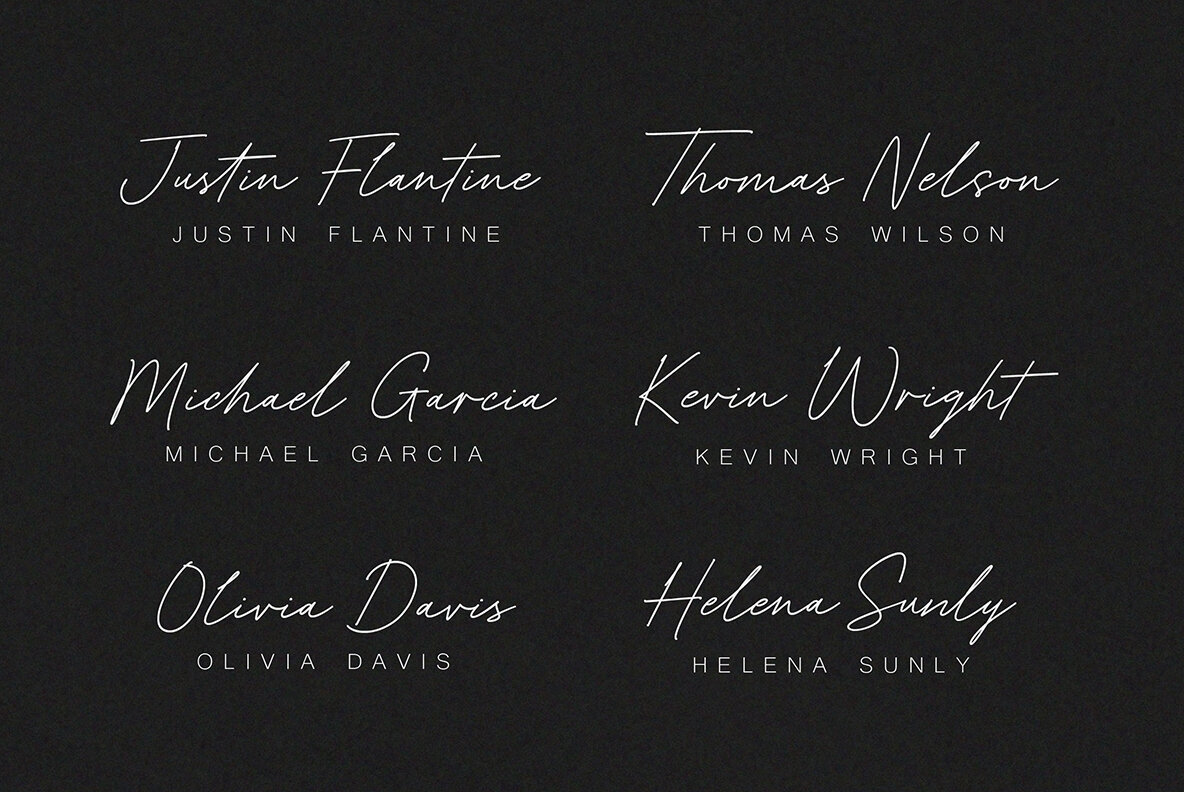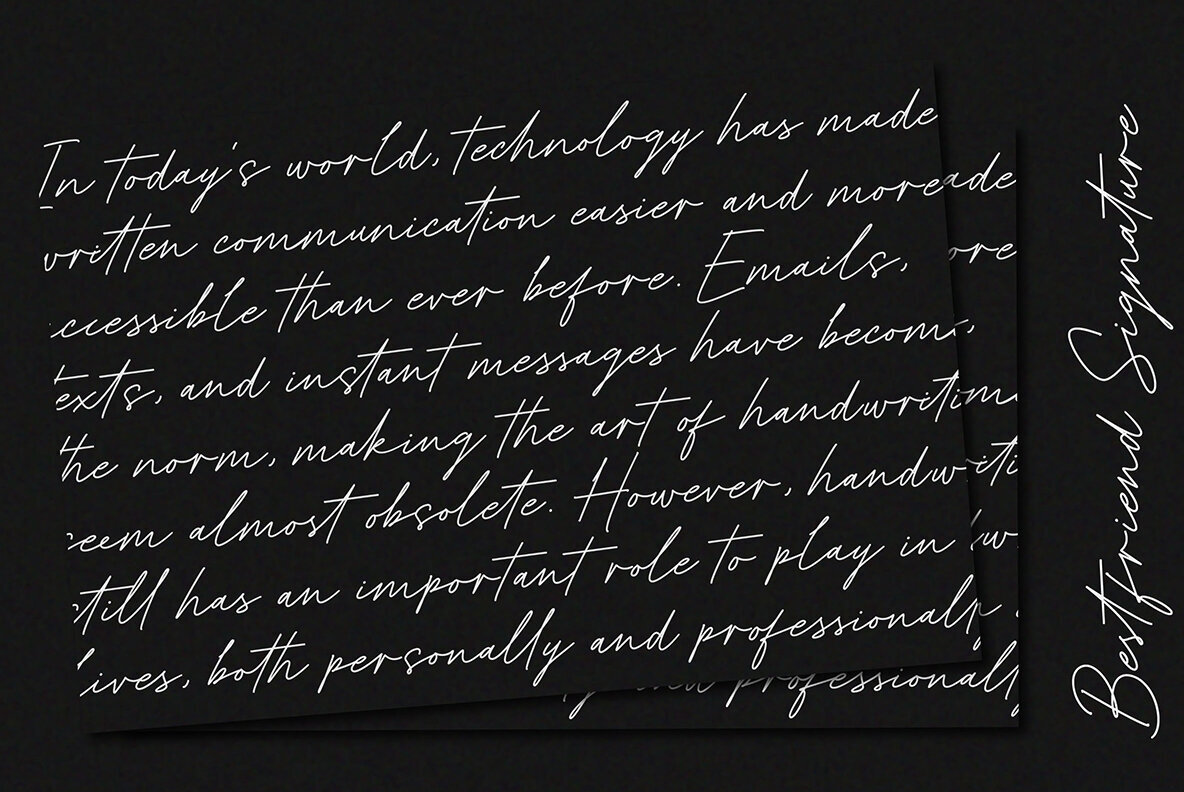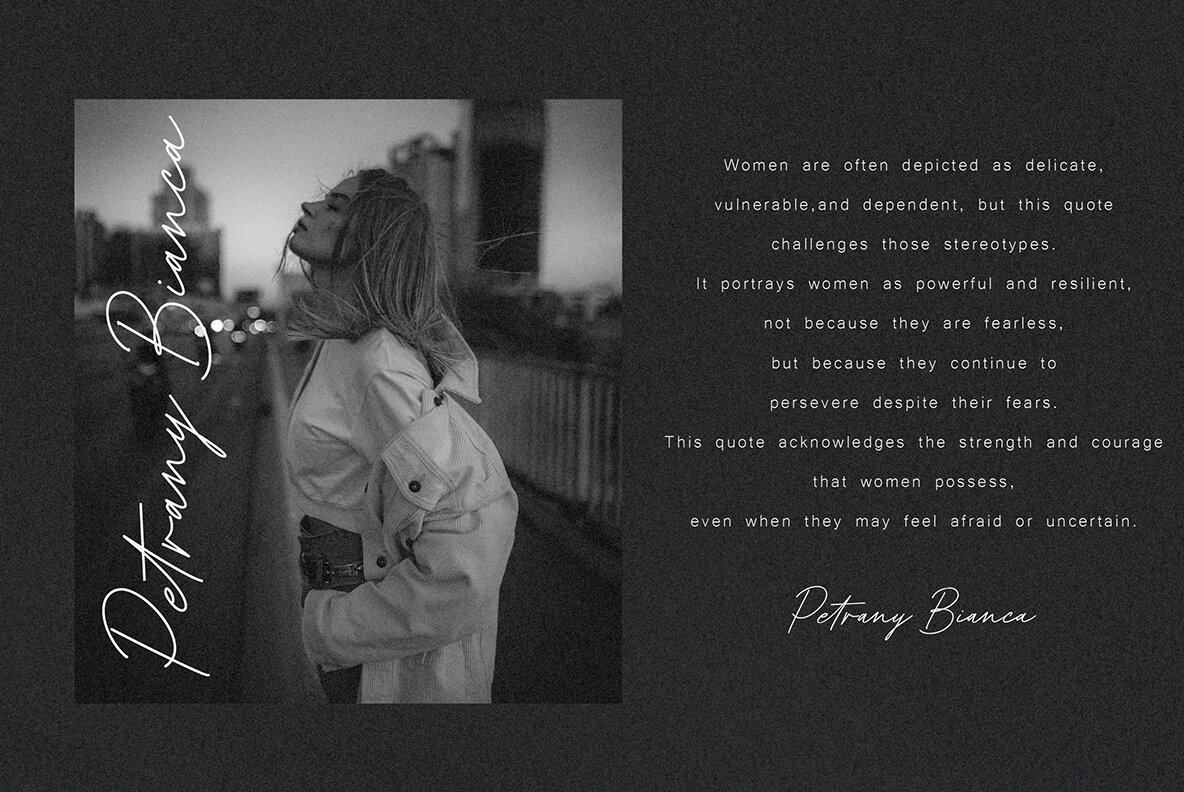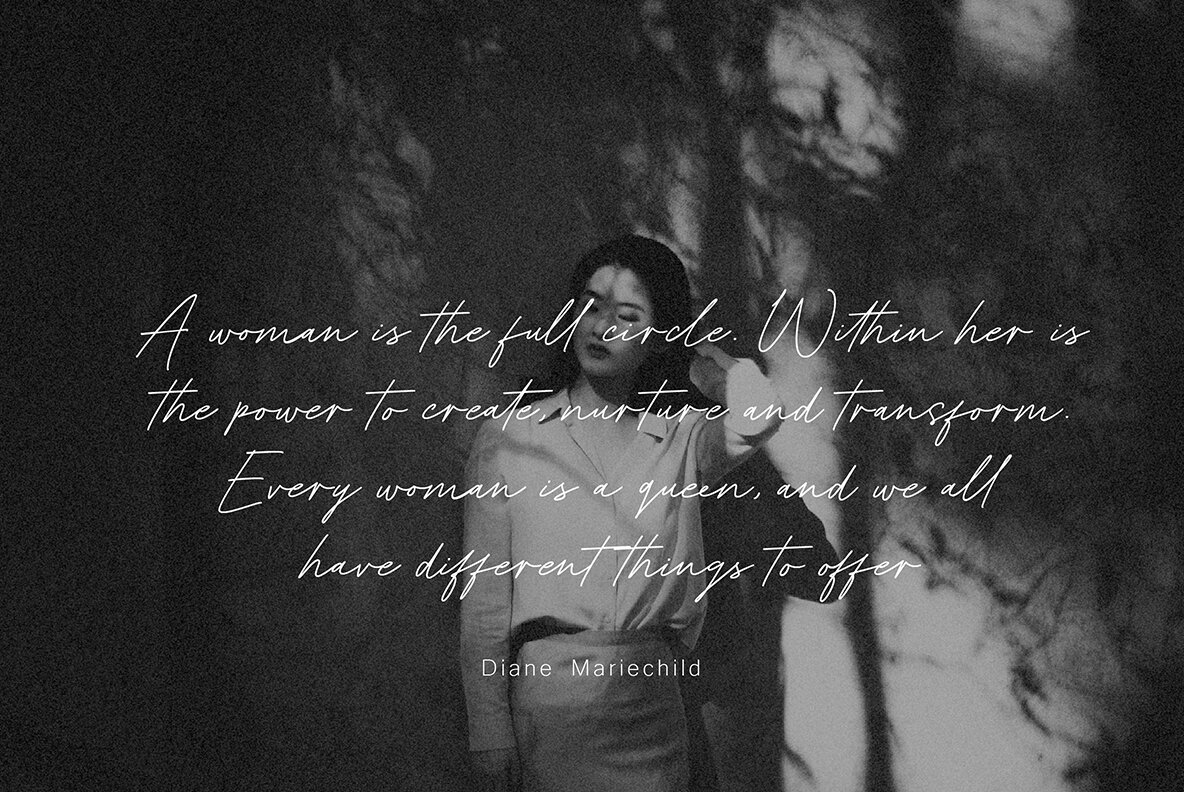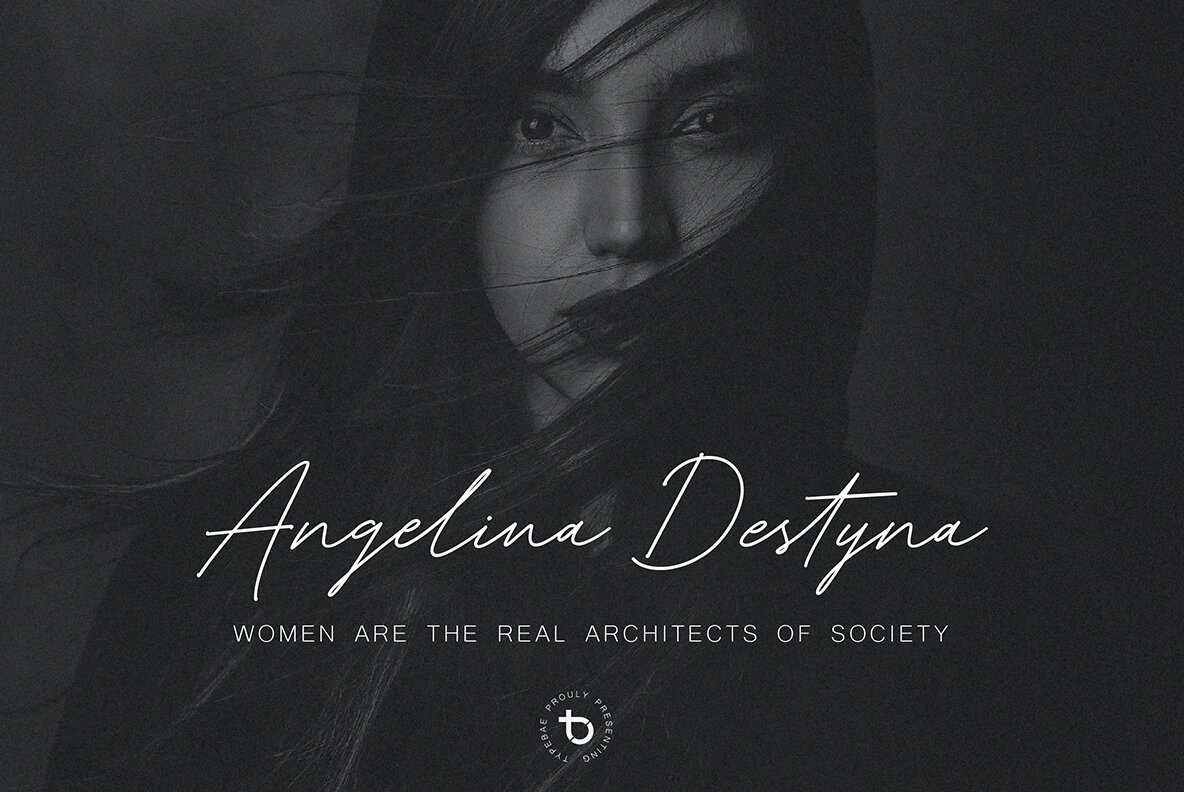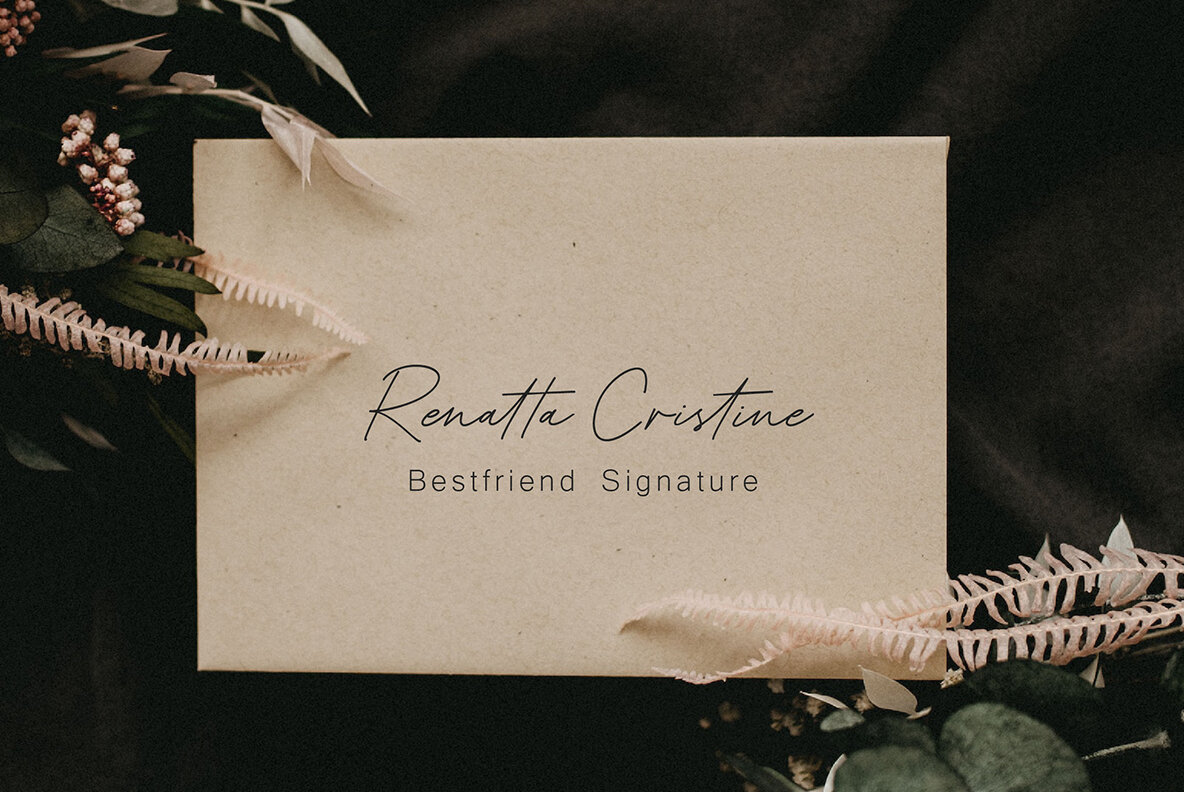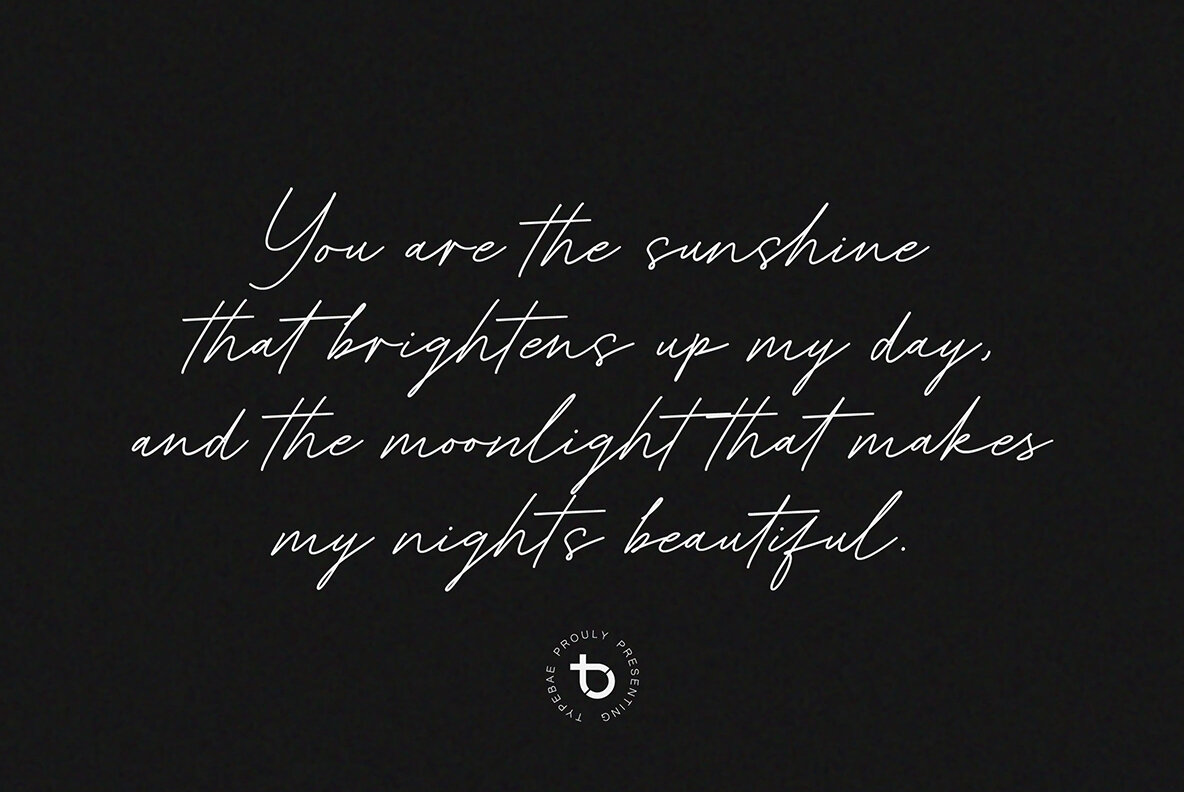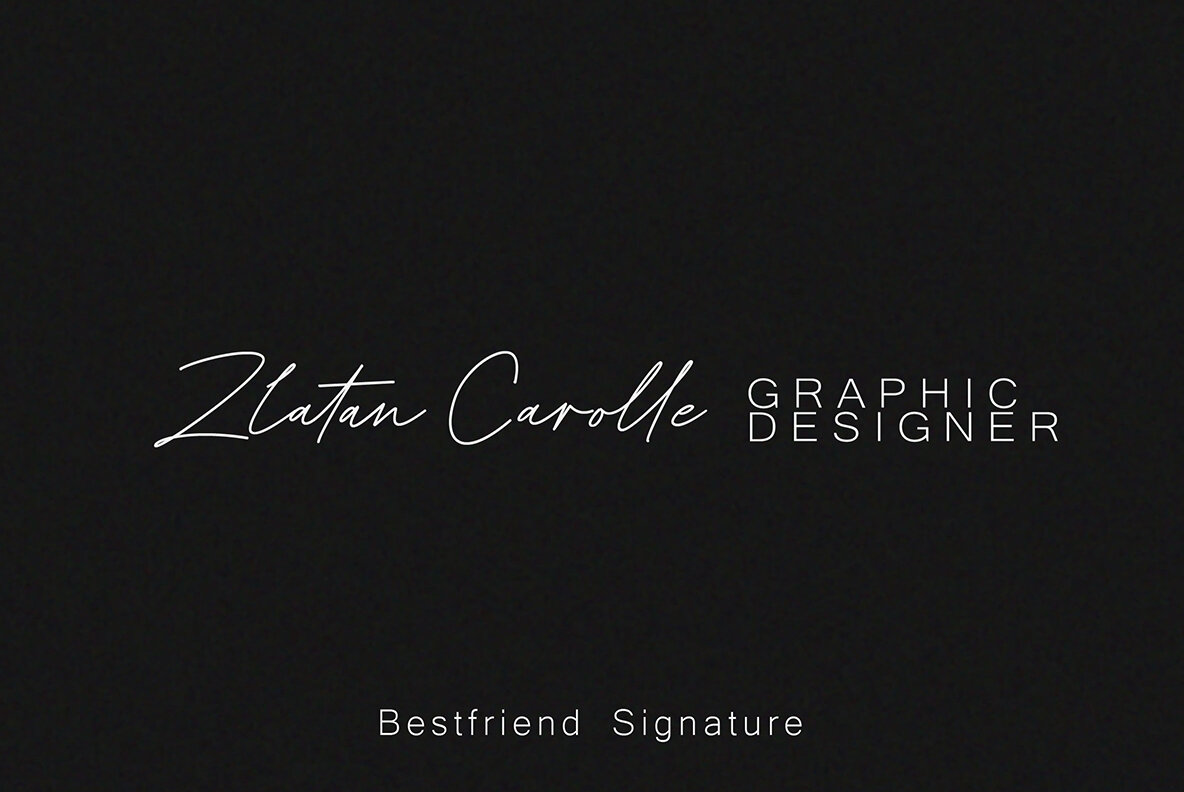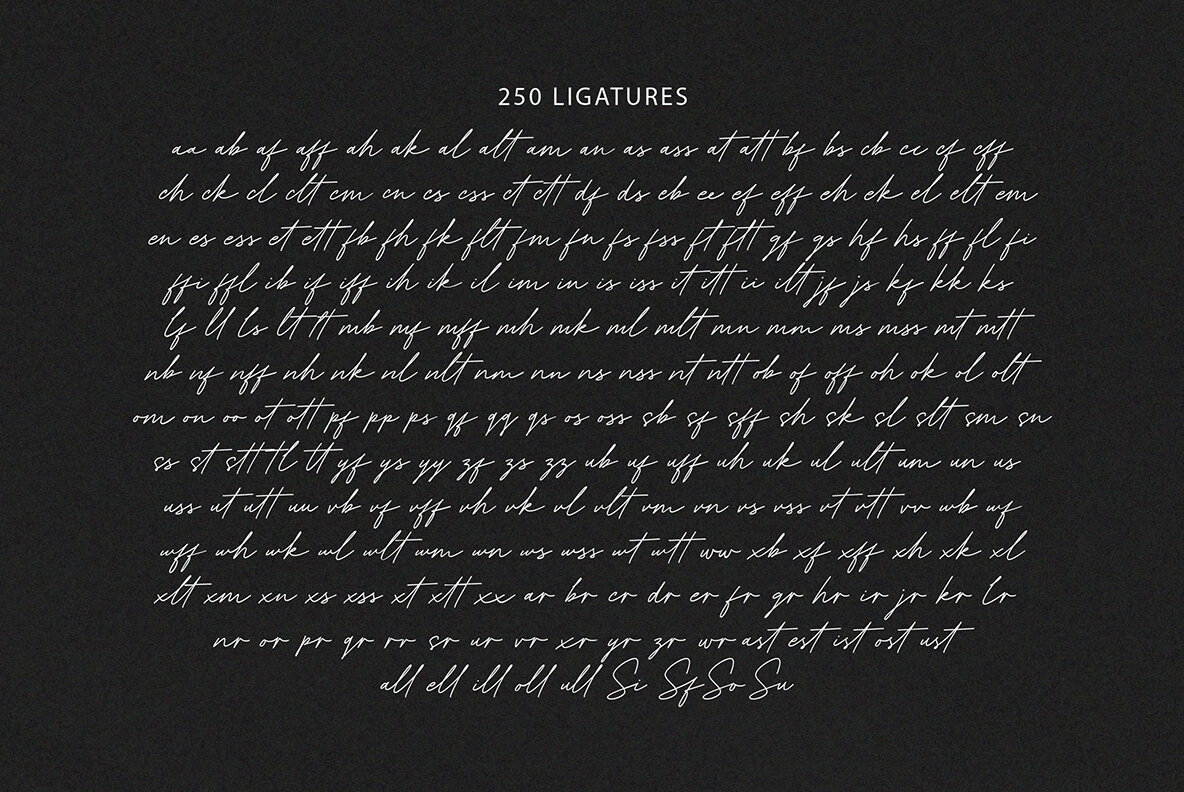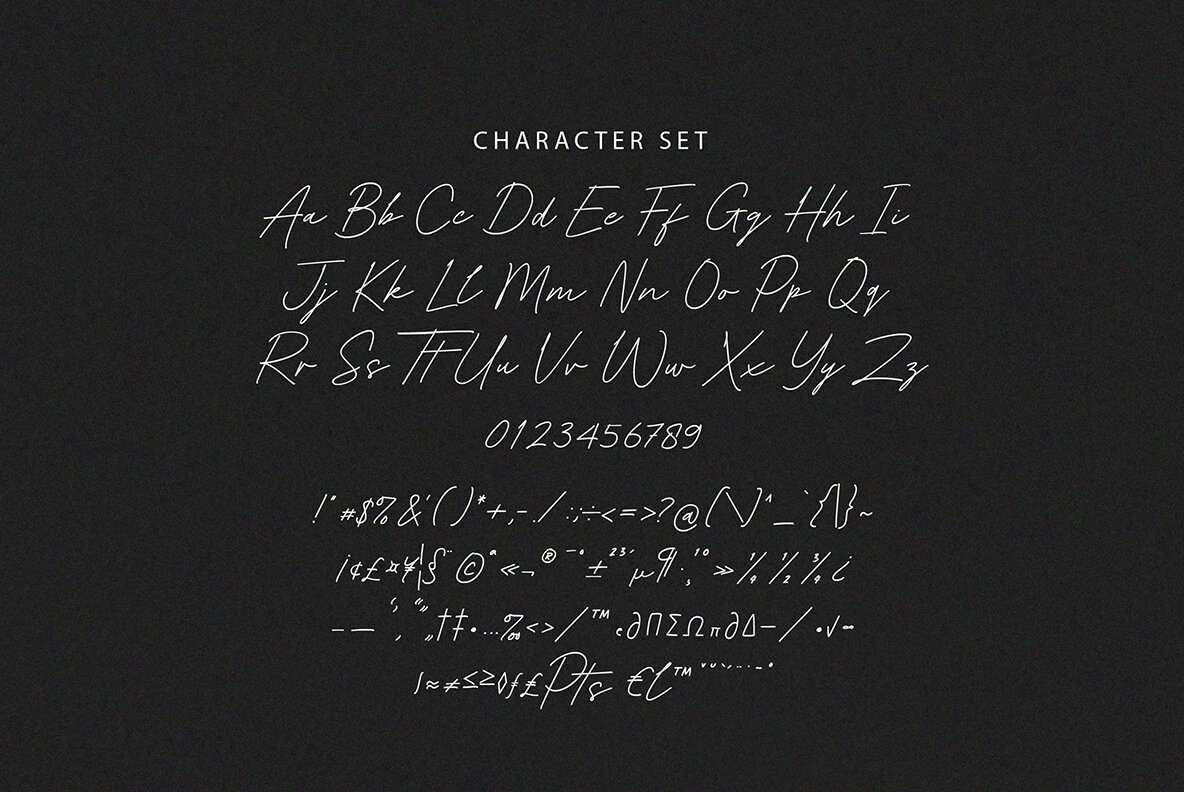
Bestfriend Signature Font
Bestfriend Signature
Bestfriend Signature is a beautiful handwritten font that radiates stylish and sophisticated vibes, featuring smooth and flowing strokes with 250 ligatures that perfectly mimic human touch. The elegant and smooth letter shapes are well-balanced, creating a harmonious and charming design. This font is perfect for adding an elegant touch to any type of design project that requires a natural handwriting feel.